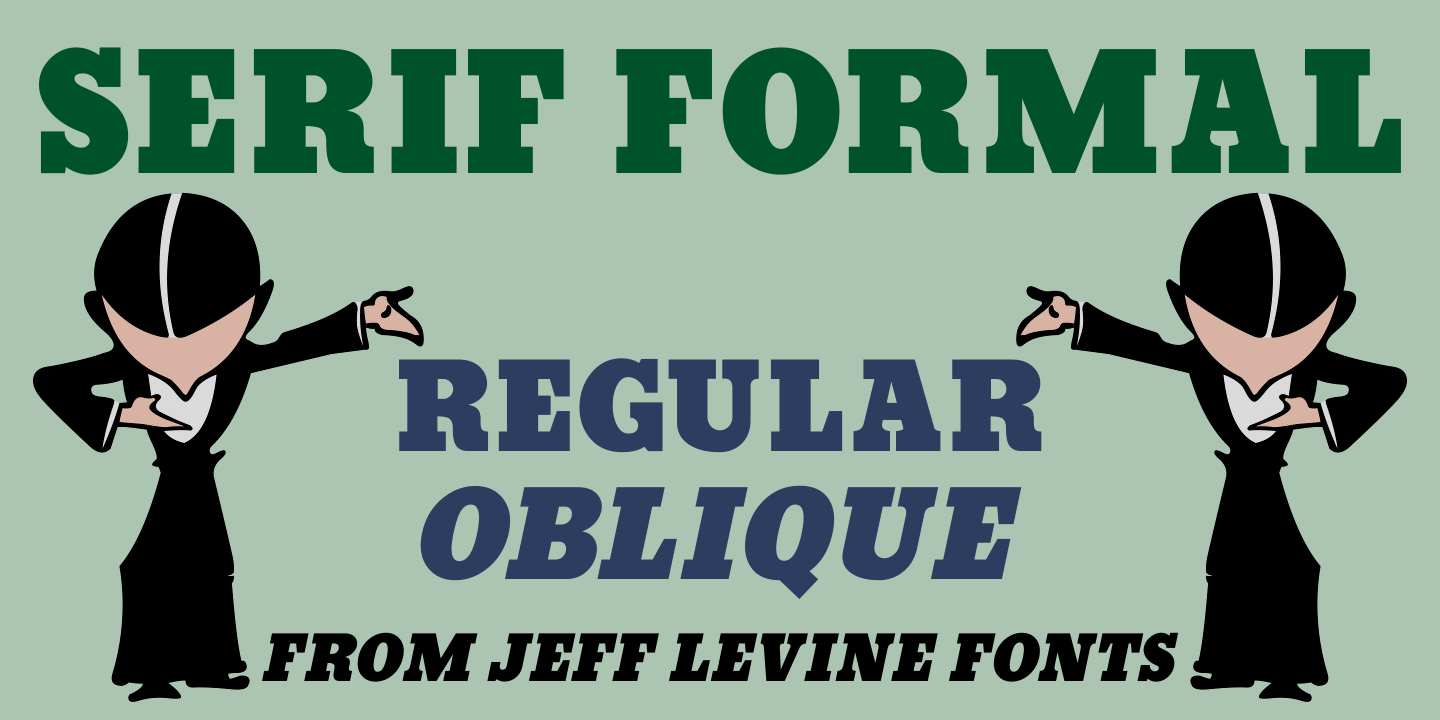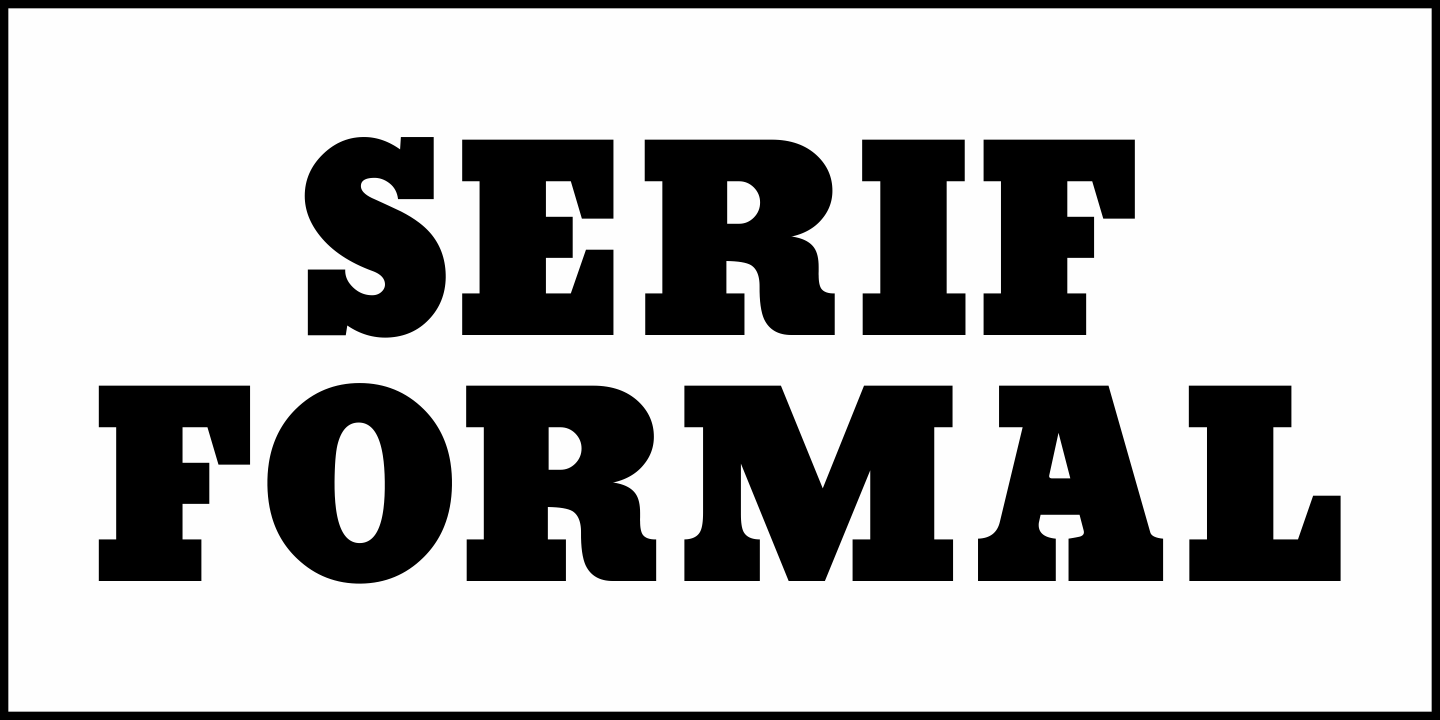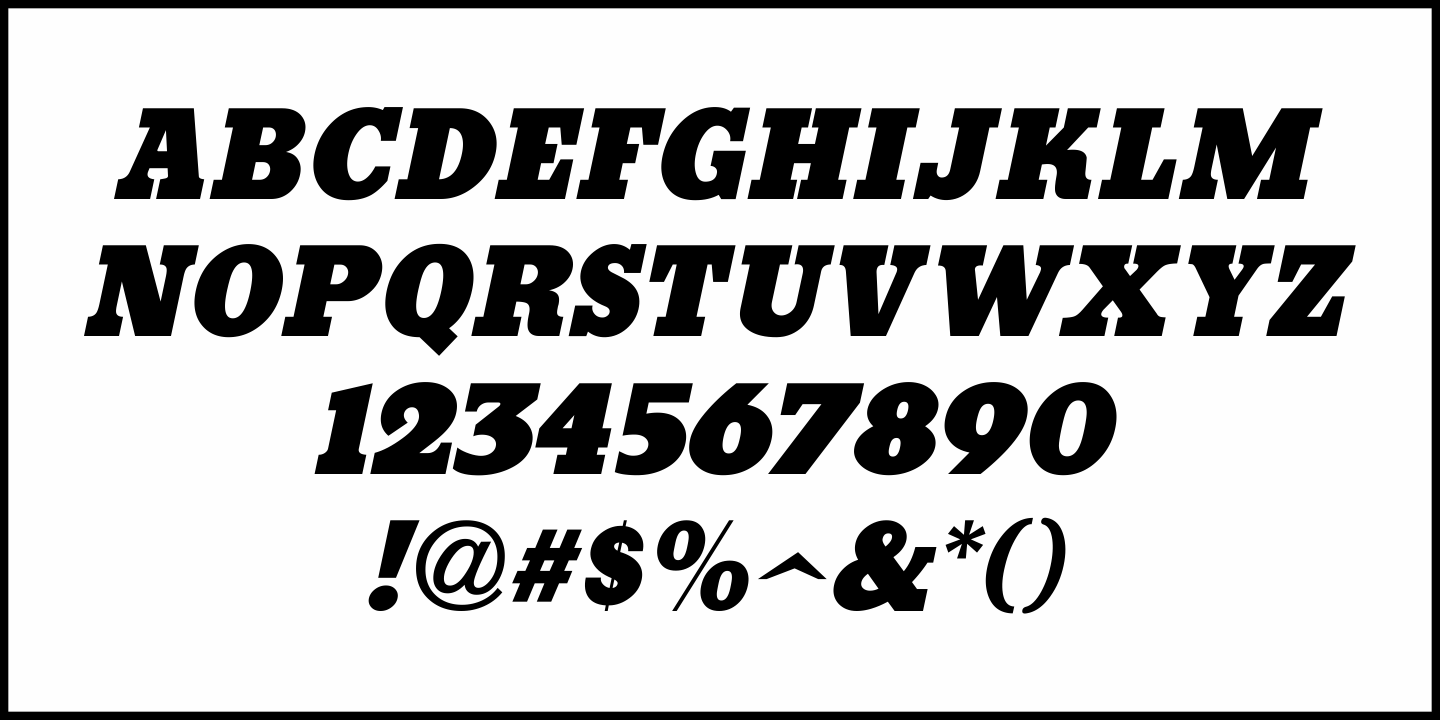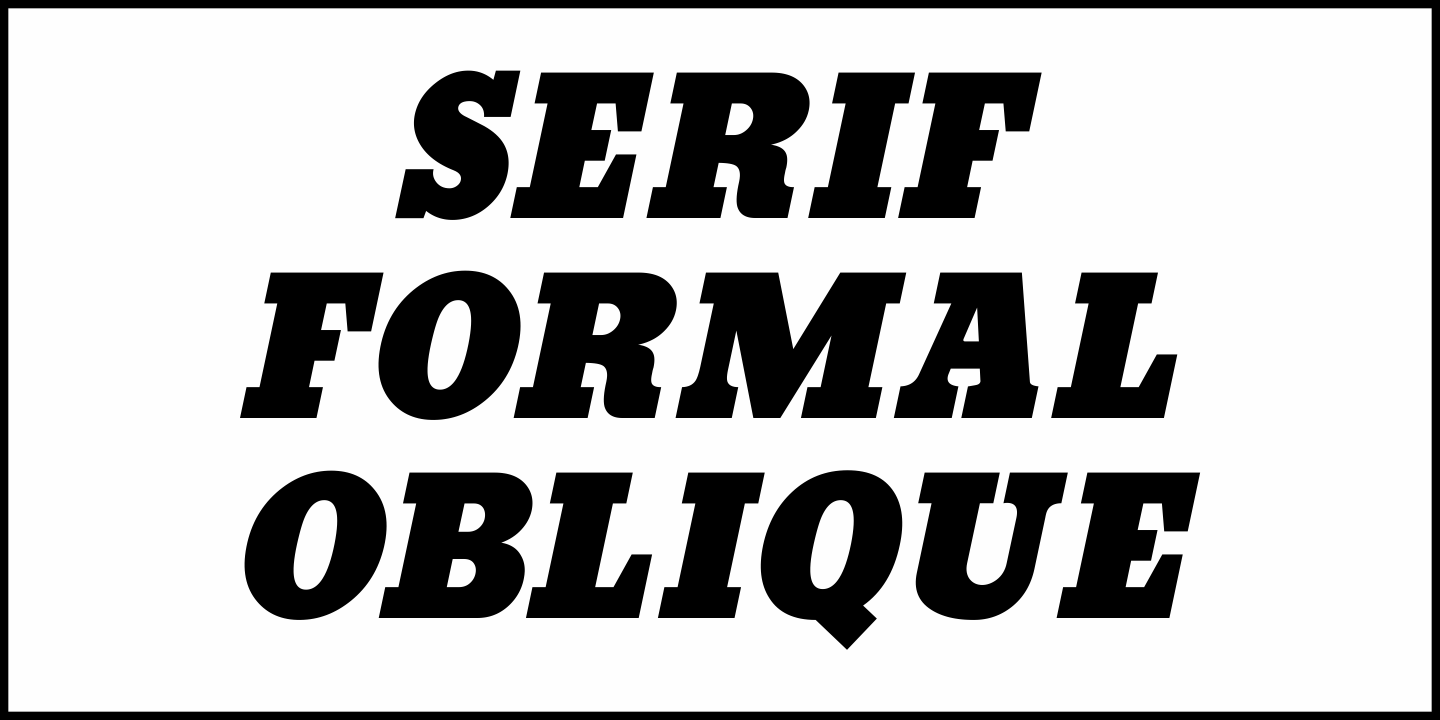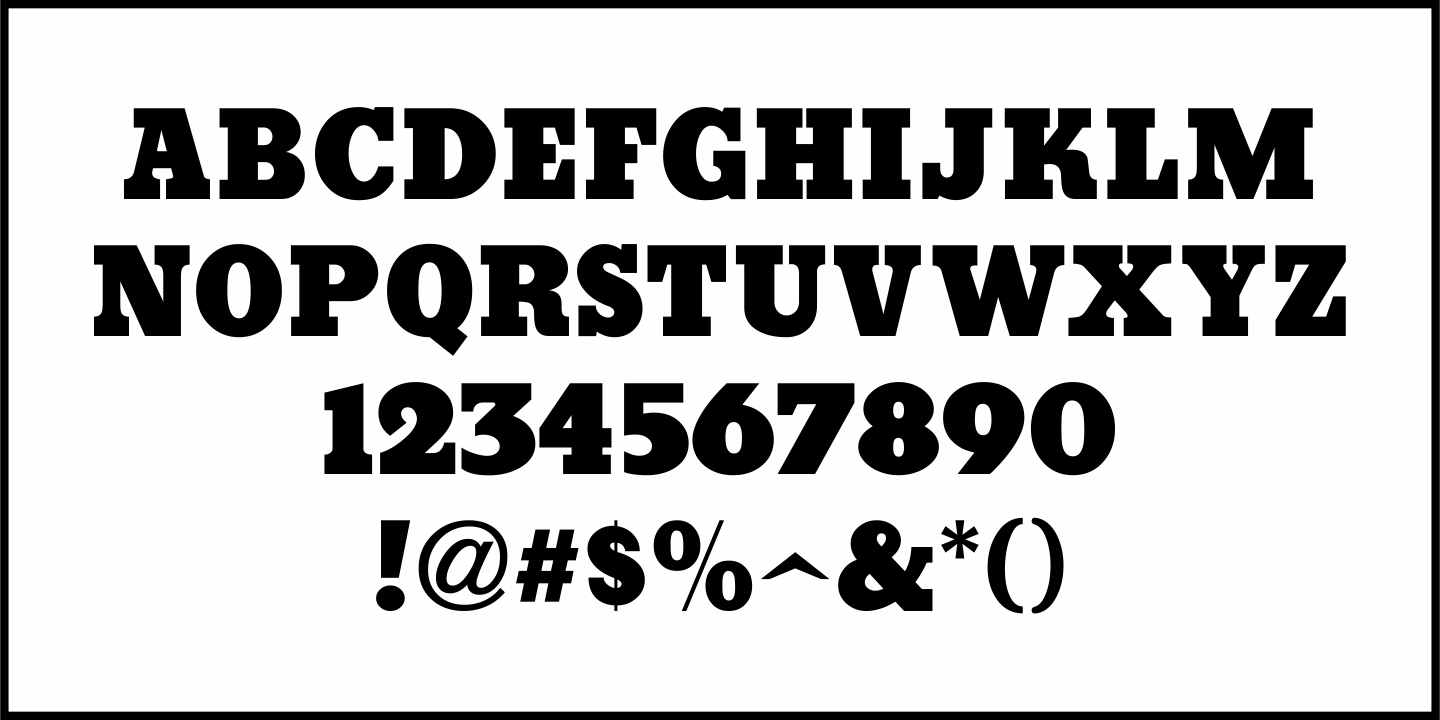
Serif Formal
An advertisement in a 1936 issue of 'The Film Daily' for the movie 'Mr. Deeds Goes to Town' had much of its copy set in an extrabold typeface similar to the Beton/Stymie/Karnac group of slabserif designs.
This is now available digitally as Serif Formal JNL in both regular and oblique versions.